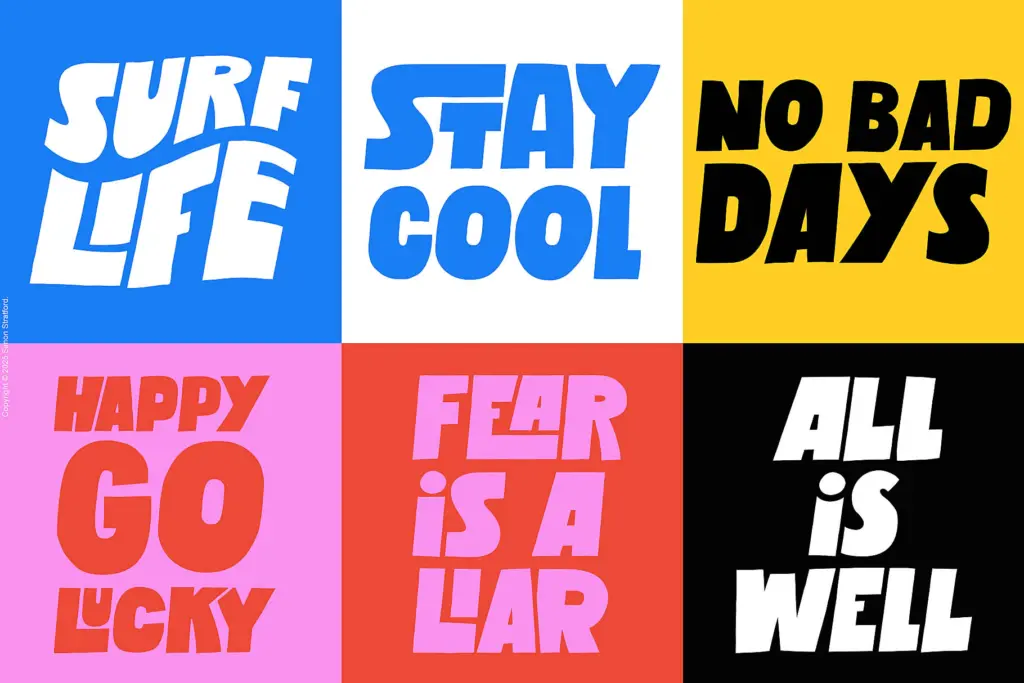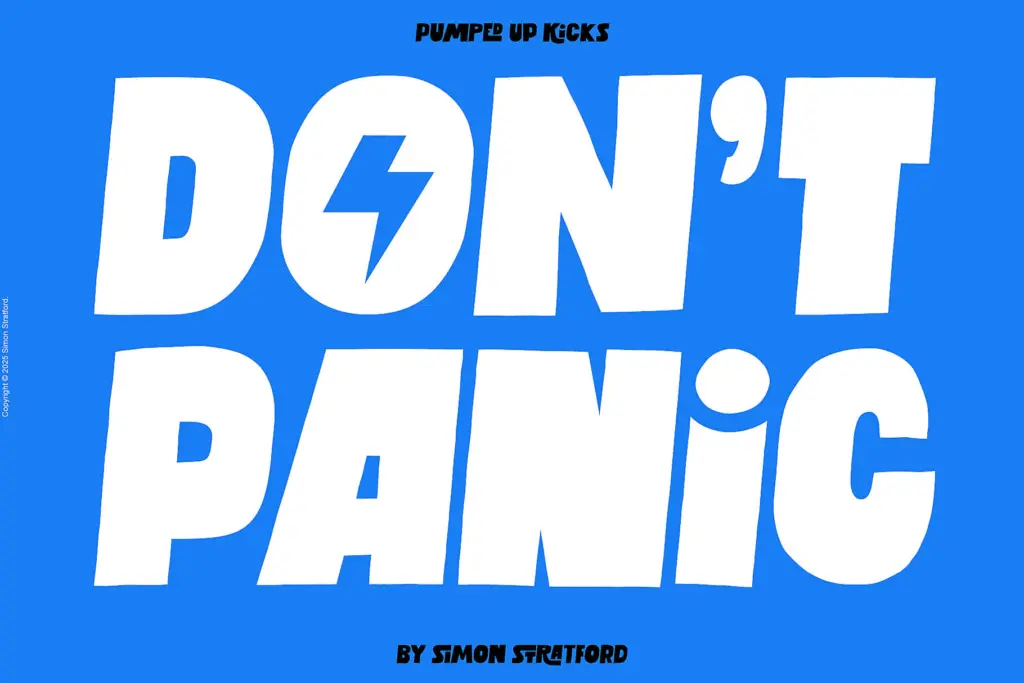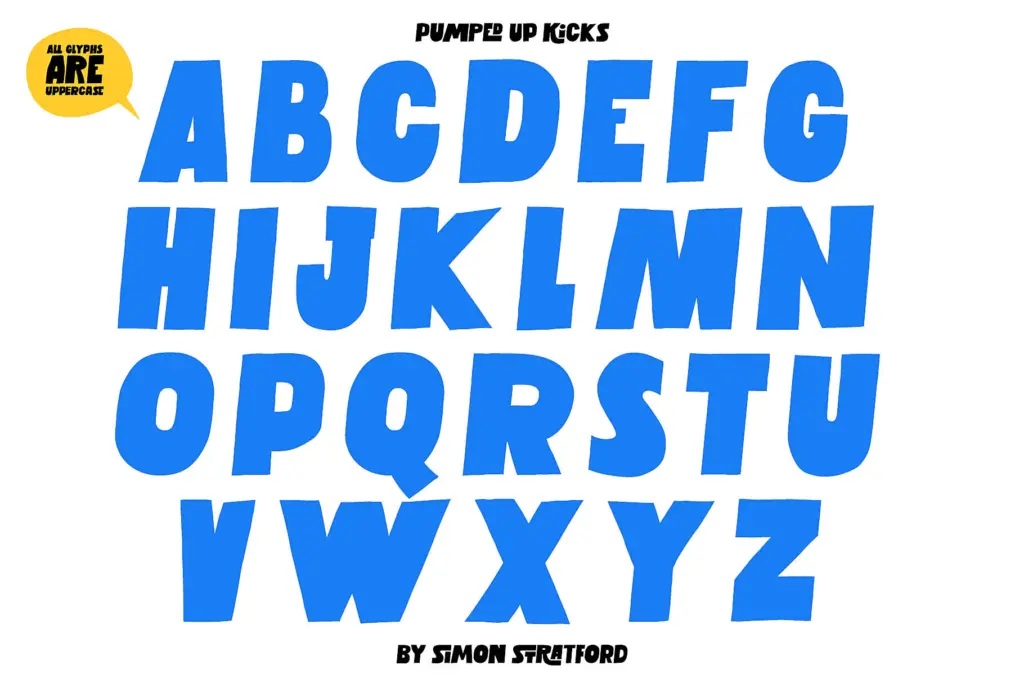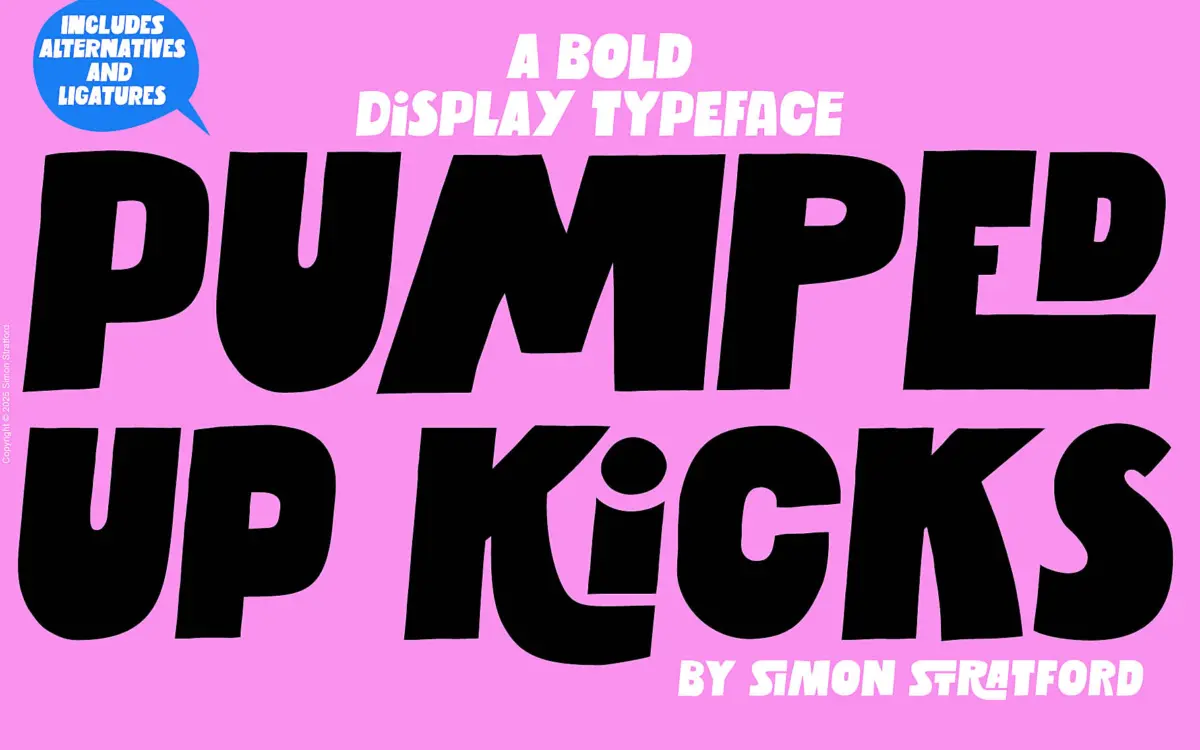
Pumped Up Kicks is a bold sans-serif display face built around irregularity. The letterforms are thick, blocky, and drawn with a deliberately uneven baseline — some characters sit a touch below the line, others float slightly above it. The effect reads as hand-cut rather than hand-drawn: less calligraphic wobble, more the look of shapes stamped down quickly and left where they landed.
The strokes are heavy and even in weight, with blunt terminals and almost no contrast between thick and thin. That gives the letters a stubby, toy-block quality that works in favour of the font’s energy but limits its range — this is not a typeface reaching for elegance or restraint. It knows what it is: loud, a little scrappy, and unbothered by symmetry.
The font is uppercase only, which is worth noting before building any layout around it — there is no lowercase to fall back on for body text or secondary information. To compensate, it ships with alternate uppercase glyphs across the full A–Z range, so a word with repeated letters can be varied rather than looking mechanically doubled. This is the font’s most useful working feature: swap one of two A’s or S’s in a word and the repetition disappears, replaced by a sense that the whole thing was set by hand rather than typed.
Because every letter is capitalised and irregular by design, the font asks the designer to do some of the finishing work — kerning pairs and word spacing benefit from a manual pass, since the baseline jitter can create gaps or crowding depending on letter combinations. There’s no light or condensed companion weight mentioned, so what you see is the full range of what’s on offer: one bold, uneven, all-caps display face with alternates.
This is a short-word, big-impact typeface. It’s suited to logotypes, poster headlines, band merch, packaging call-outs, and social graphics where a handful of words need to carry visual weight and personality rather than convey information quietly. The alternate glyphs make it genuinely useful for wordmarks — a brand name with a repeated letter can look considered rather than accidental.
It is not built for setting sentences. Without a lowercase, extended copy in this face turns into a wall of shouting capitals, and the baseline irregularity that reads as charming in a three-word headline becomes fatiguing across a paragraph. Pair it with a plain, quiet body font for anything that needs actual reading, and reserve Pumped Up Kicks for the line that’s meant to be looked at first.
Its natural home is casual, youth-facing branding — streetwear, event posters, playlist covers, anything that wants a scrappy, energetic voice rather than a polished one. Where a brand needs formality or subtlety, this typeface will fight the brief rather than serve it.
- Alternate glyphs across A–Z genuinely help disguise repeated letters in wordmarks
- Heavy, even strokes give it strong presence at poster and logo scale
- Uneven baseline adds handmade charm without looking like a script font
- No lowercase means it can only ever be a headline or accent typeface
- Baseline irregularity can create awkward spacing that needs manual kerning
Pumped Up Kicks is a fun, scrappy display face for short bursts of text — logos, posters, headlines. The uppercase-only structure and uneven baseline limit it firmly to display use, so don't expect it to carry a whole layout.